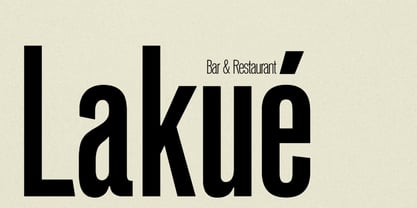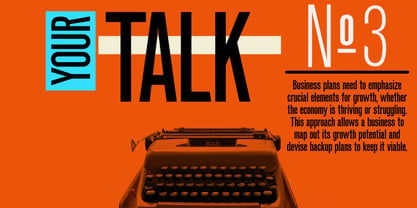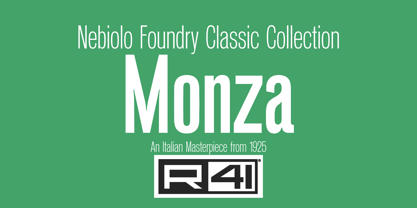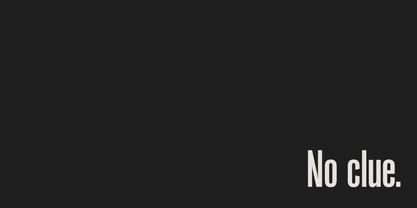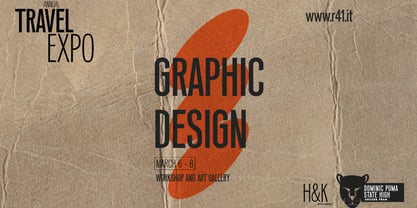
R41 Monza
by Reber R41
The R41 Monza Font Family was designed by Ariel Brandolini, Daniele Medina and published by Reber R41. R41 Monza contains 2 styles and family package options. More about this family
R41 Monza is a contemporary revival of a pair of grotesque styles originally released by Fonderie Nebiolo around 1925. This high-waisted, condensed sans serif features unique quirks in certain letters, enhancing its character. The compact structure of R41 Monza makes it ideal for applications where space is limited, such as branding, web design, and editorial layouts. Its eccentric details add warmth and personality, striking a balance between simplicity and distinctive flair. Perfect for modern design projects that require a touch of individuality while maintaining readability.
Designers: Ariel Brandolini, Daniele Medina
Foundry: Reber R41